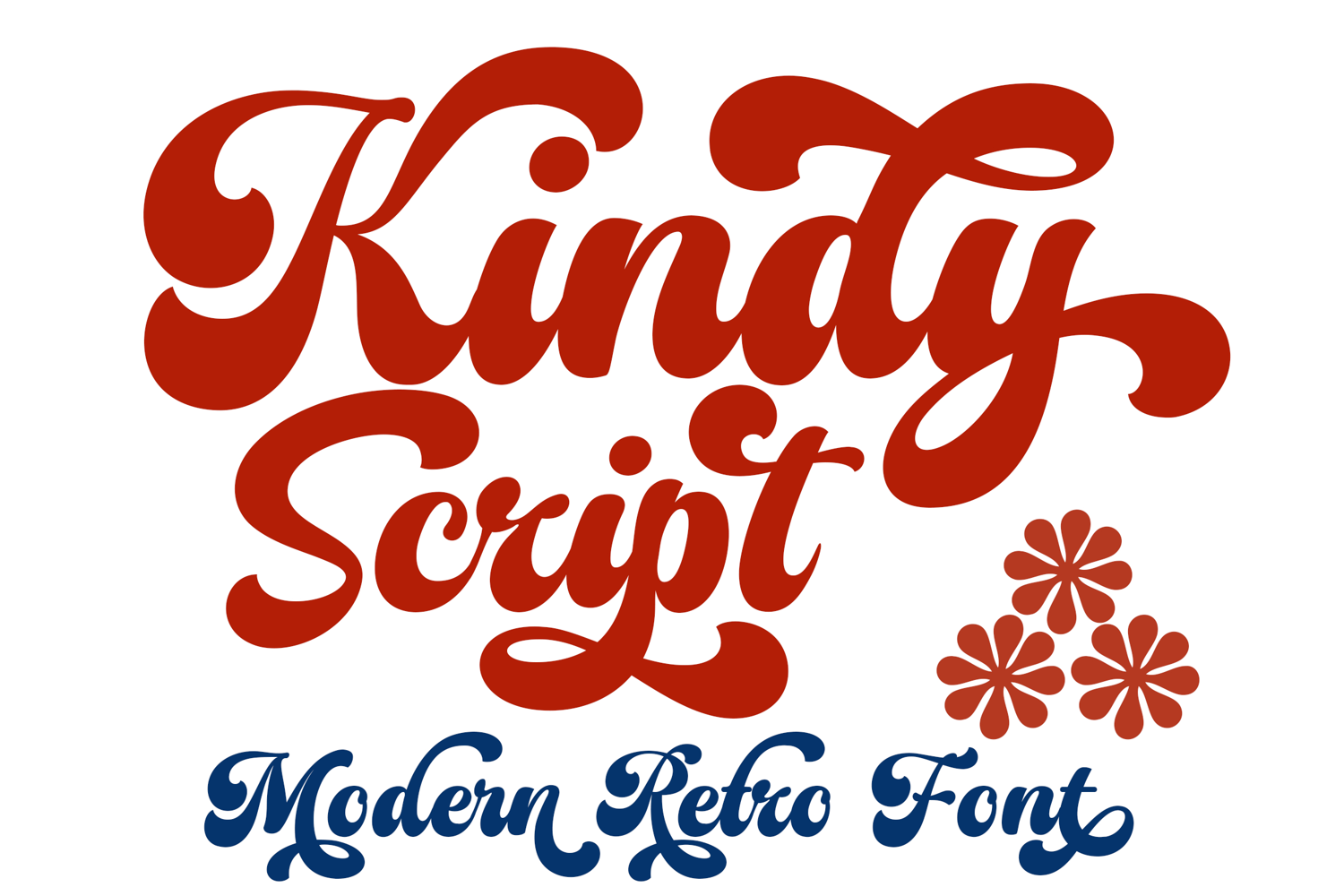
Kindy Script
Relive the Golden Era with Kindy Script
Step into a world of timeless charm with Kindy Script, a modern retro typeface designed to bridge the gap between vintage soul and contemporary precision. Inspired by the bold, flowing curves of 1970s typography, Kindy Script brings a warm, nostalgic energy to any project.
Whether you are designing a high-end brand identity, groovy posters, or eye-catching packaging, its fluid swashes and thick, velvety strokes command attention. It’s not just a font; it’s a tribute to the era of funk and freedom, refined for the modern creator.
Kindy Script is a high-performance display font engineered for designers who demand both style and functionality. Characterized by its "Modern Retro" silhouette, this typeface features a comprehensive set of PUA Encoded characters, ensuring full accessibility across all design software.
Key Features:
Stylistic Alternates: Effortlessly customize your lettering for a unique look.
Decorative Swashes: Add a sophisticated flair to your headlines and logos.
Seamless Connectivity: Expertly crafted ligatures for a natural, hand-lettered feel.
Optimized Legibility: Bold enough for impact, yet refined enough for clarity.